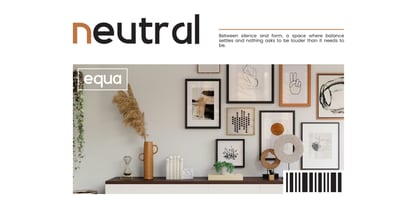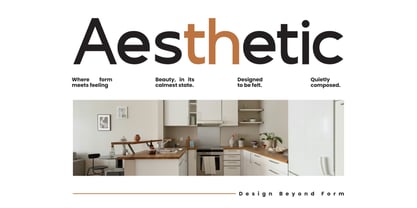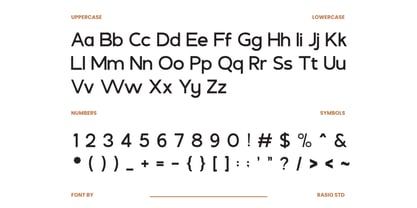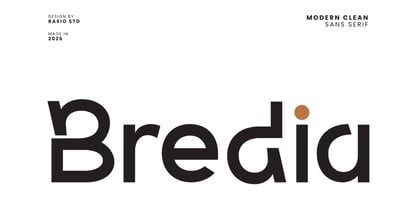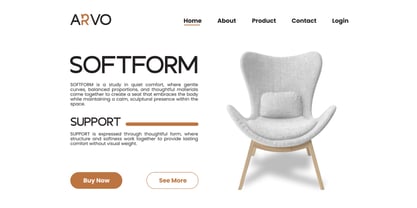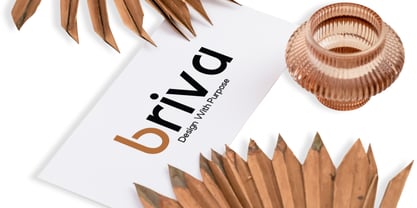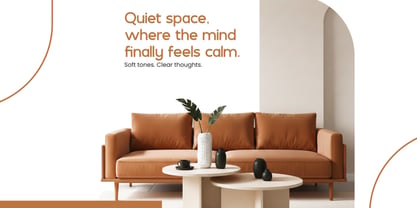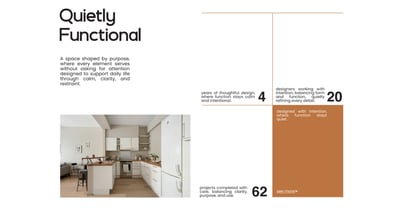
Bredia
Die Schriftfamilie Bredia wurde von Fajar Indra entworfen und von Rasio Studio veröffentlicht. Bredia enthält 1 Stile. Mehr über diese Familie
Bredia is a modern clean sans serif font designed with balanced proportions, smooth curves, and a refined minimalist character. The typeface features clear letterforms, comfortable spacing, and consistent stroke weight for optimal readability. Bredia is perfect for brand identities, corporate visuals, editorial layouts, UI/UX interfaces, website typography, product presentations, packaging designs, and clean marketing materials that require a calm, professional, and modern visual tone.